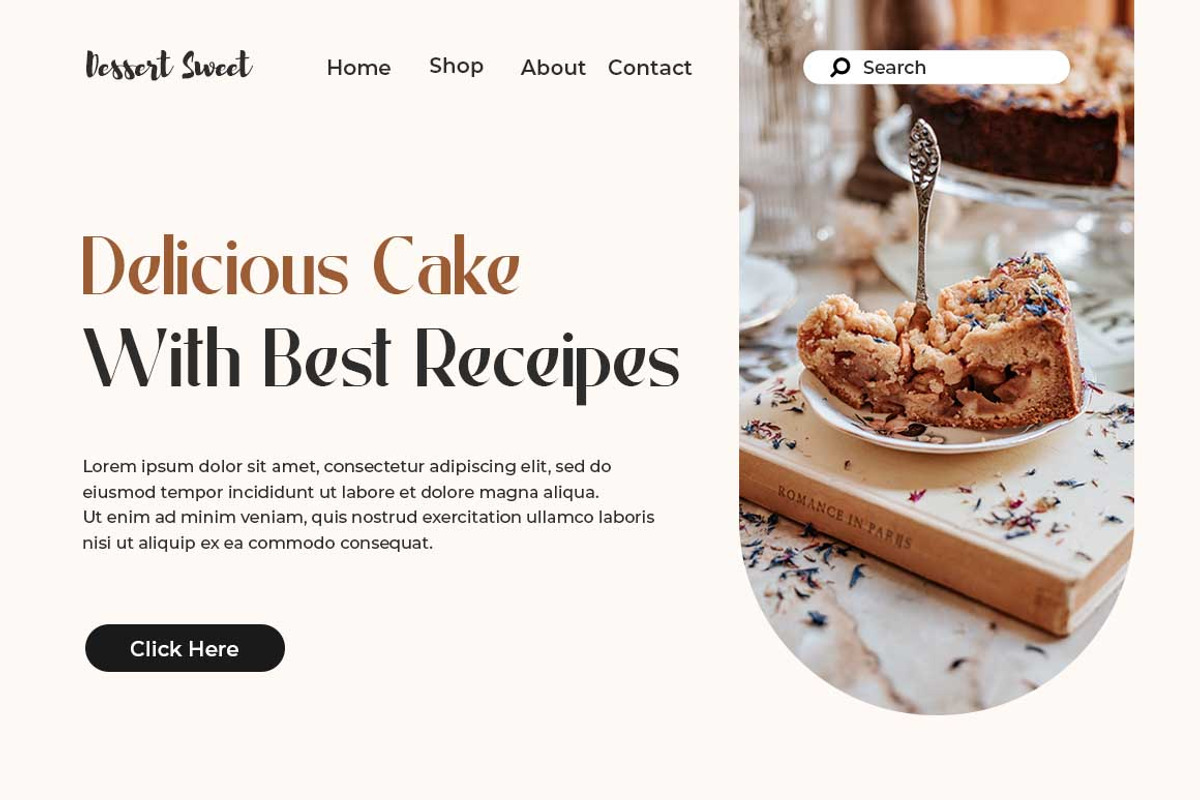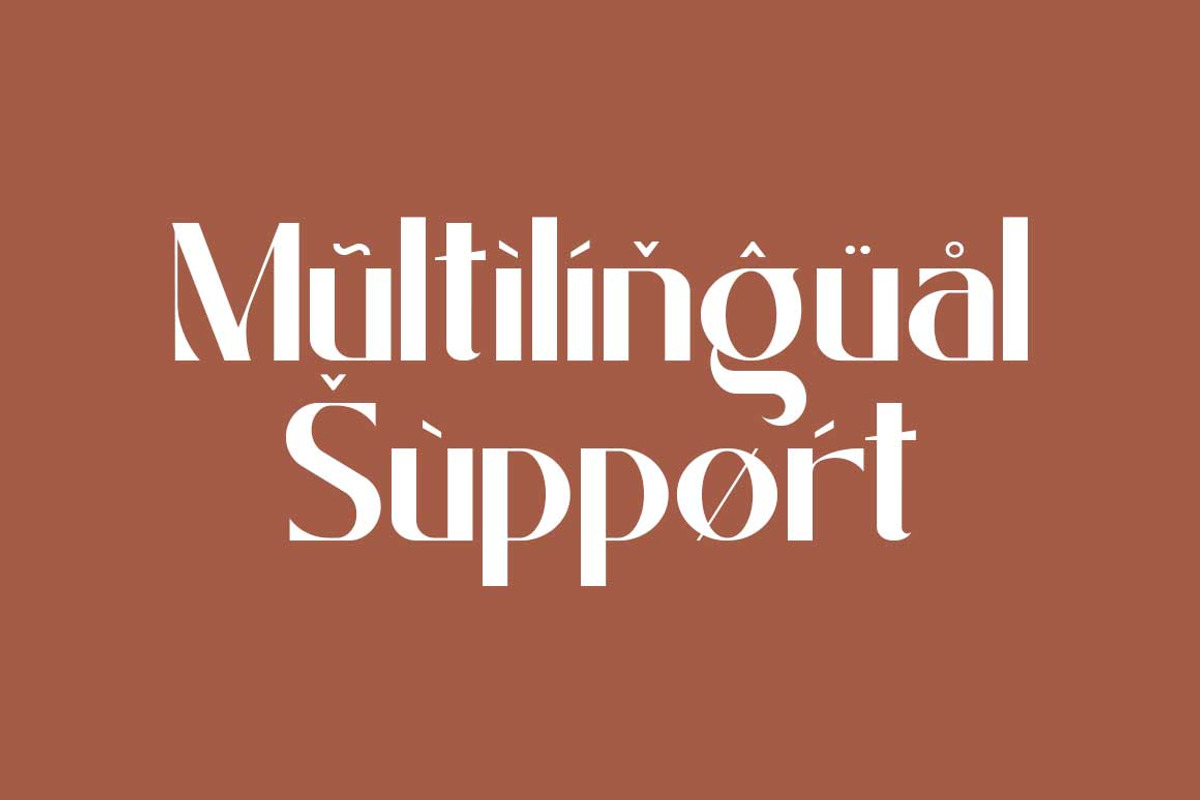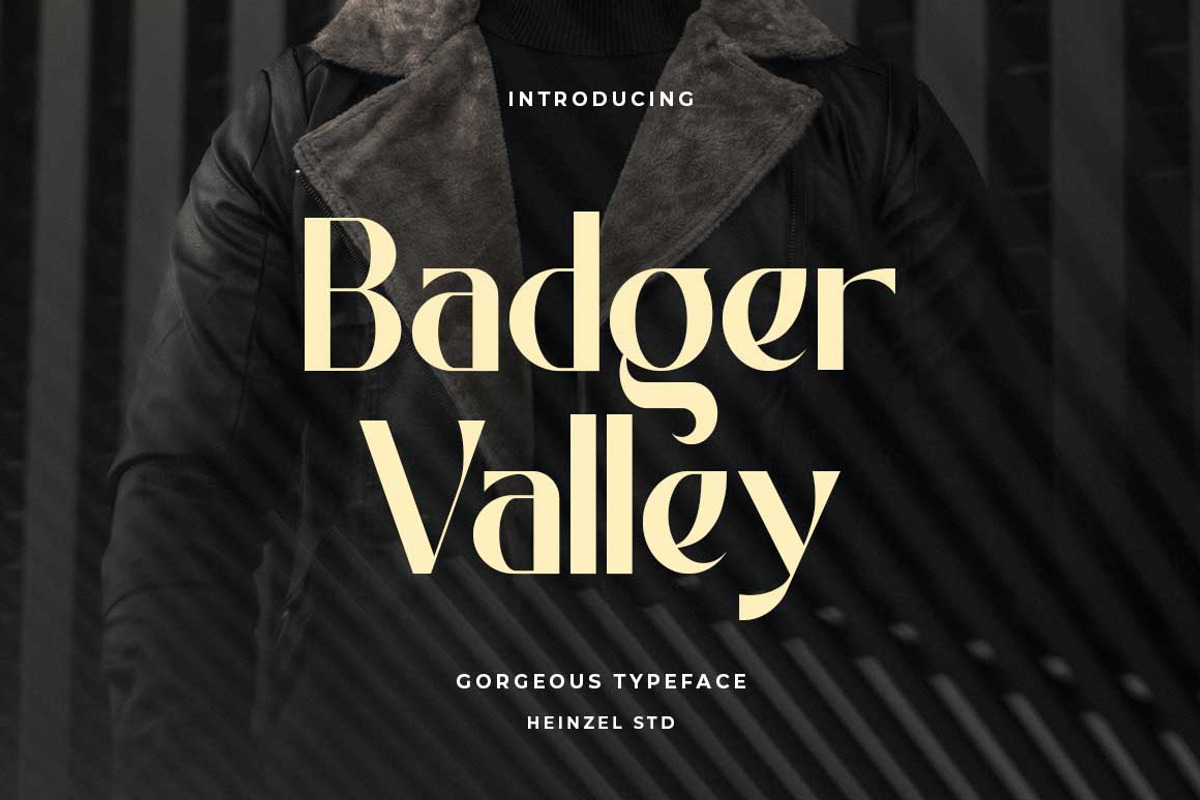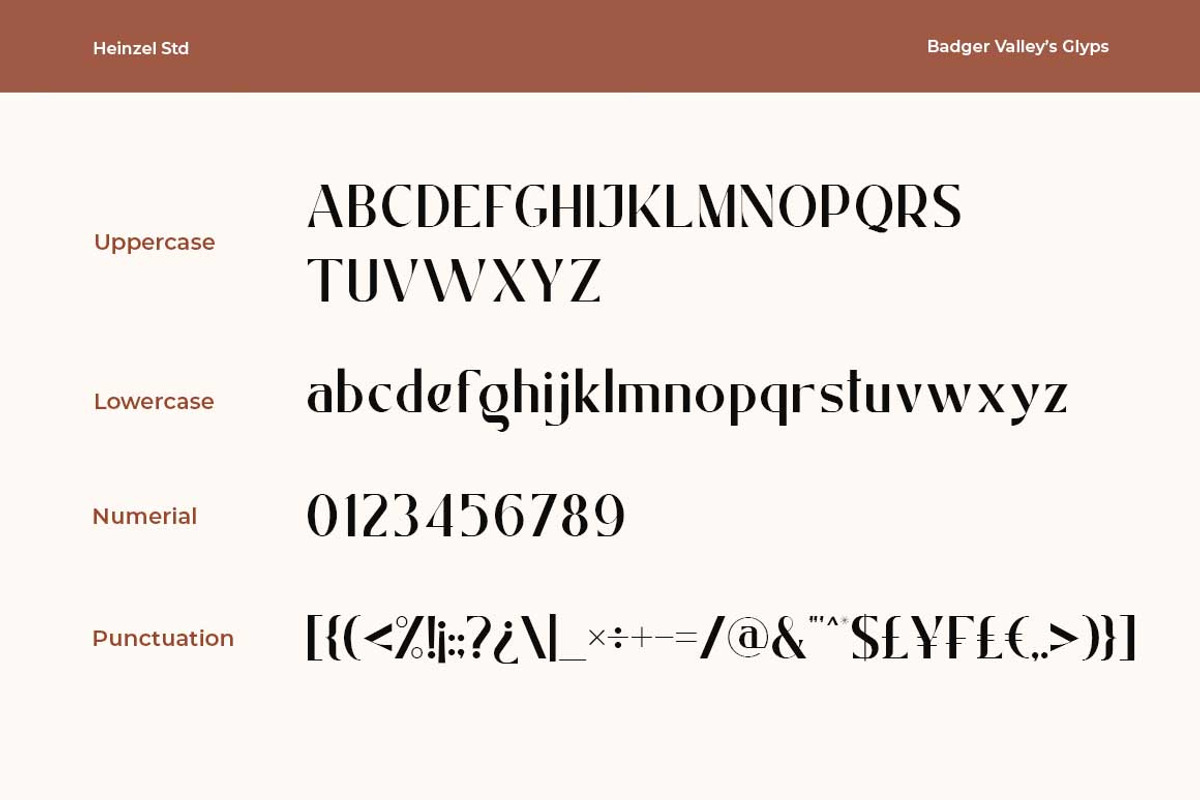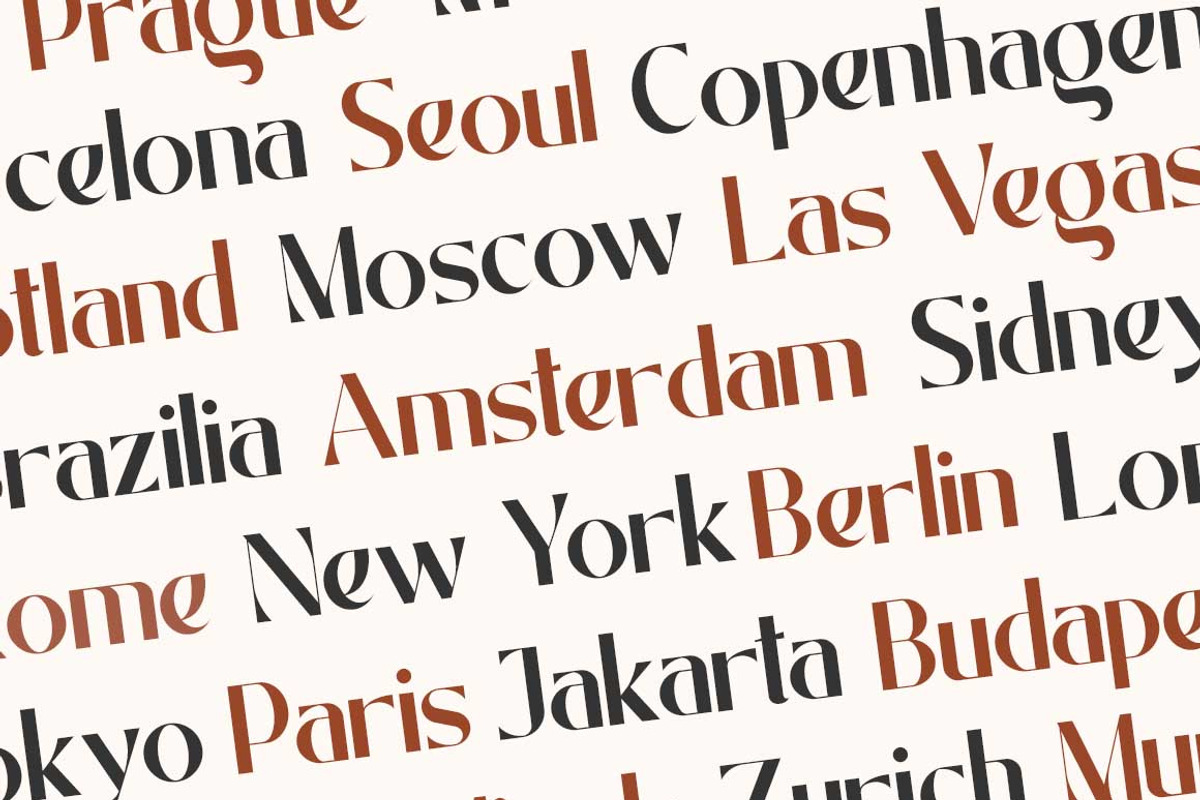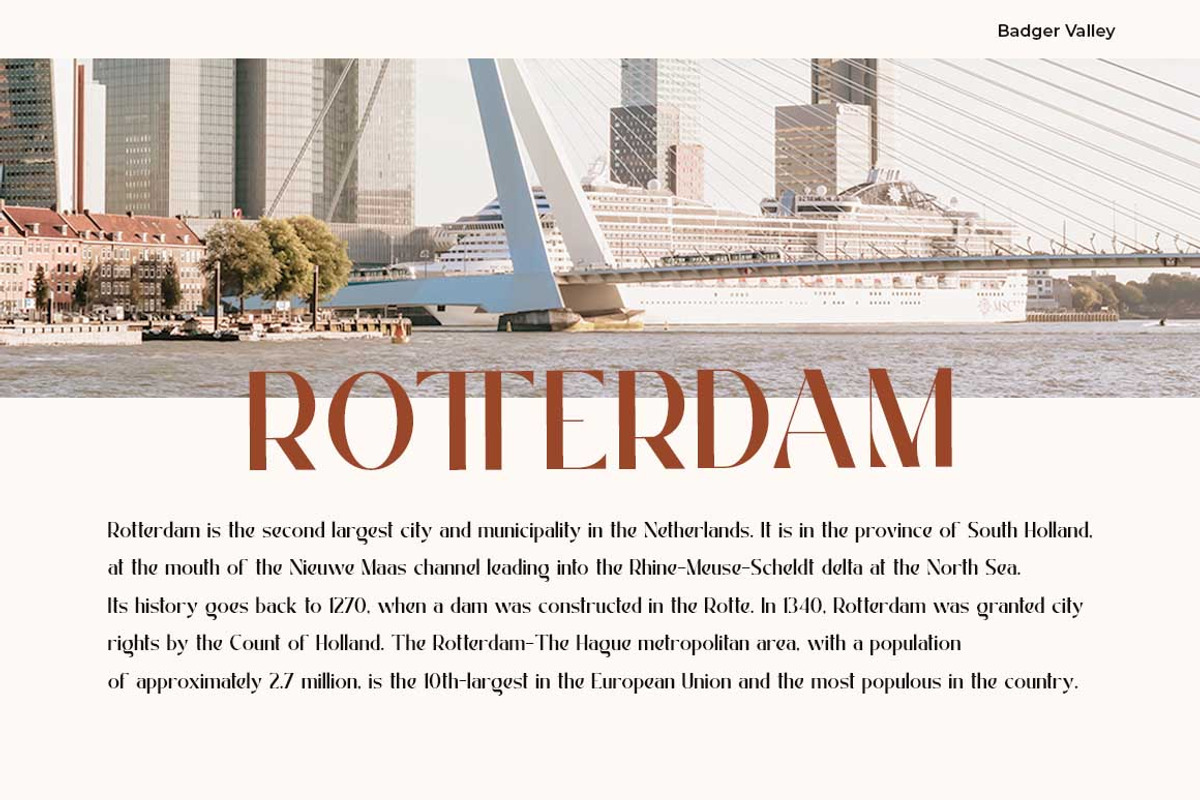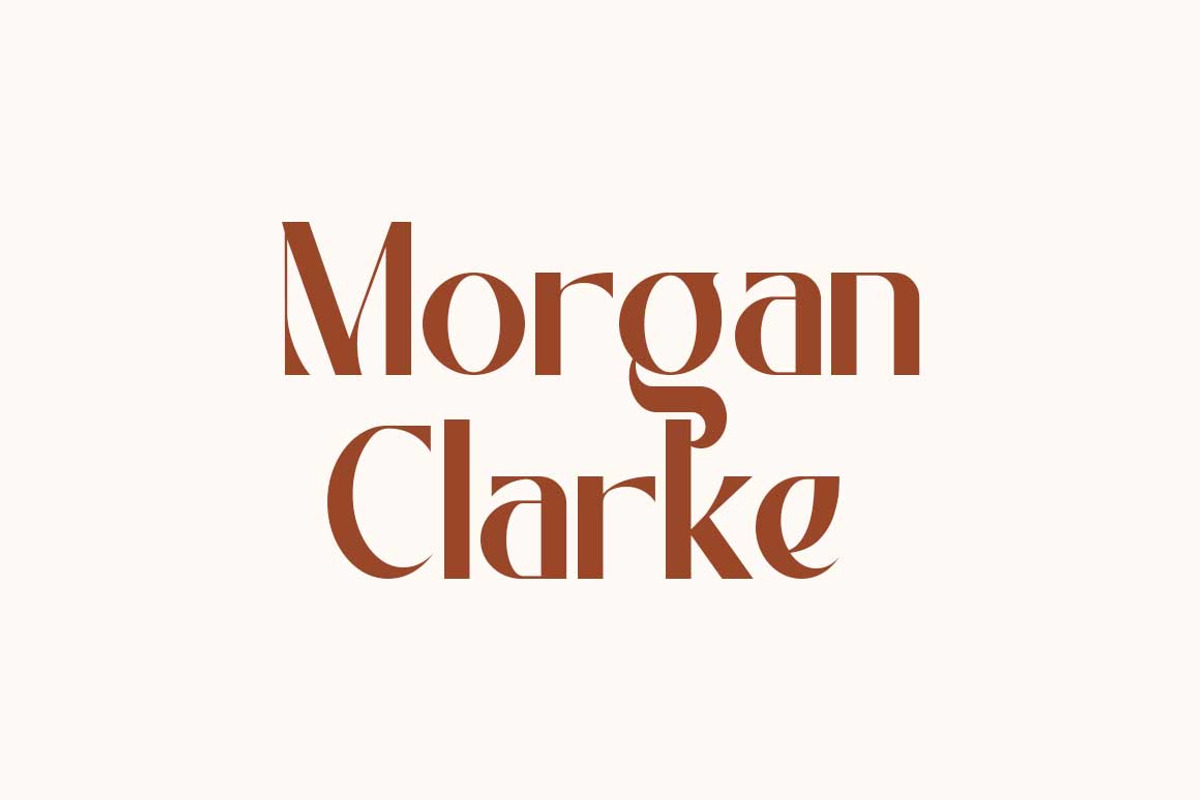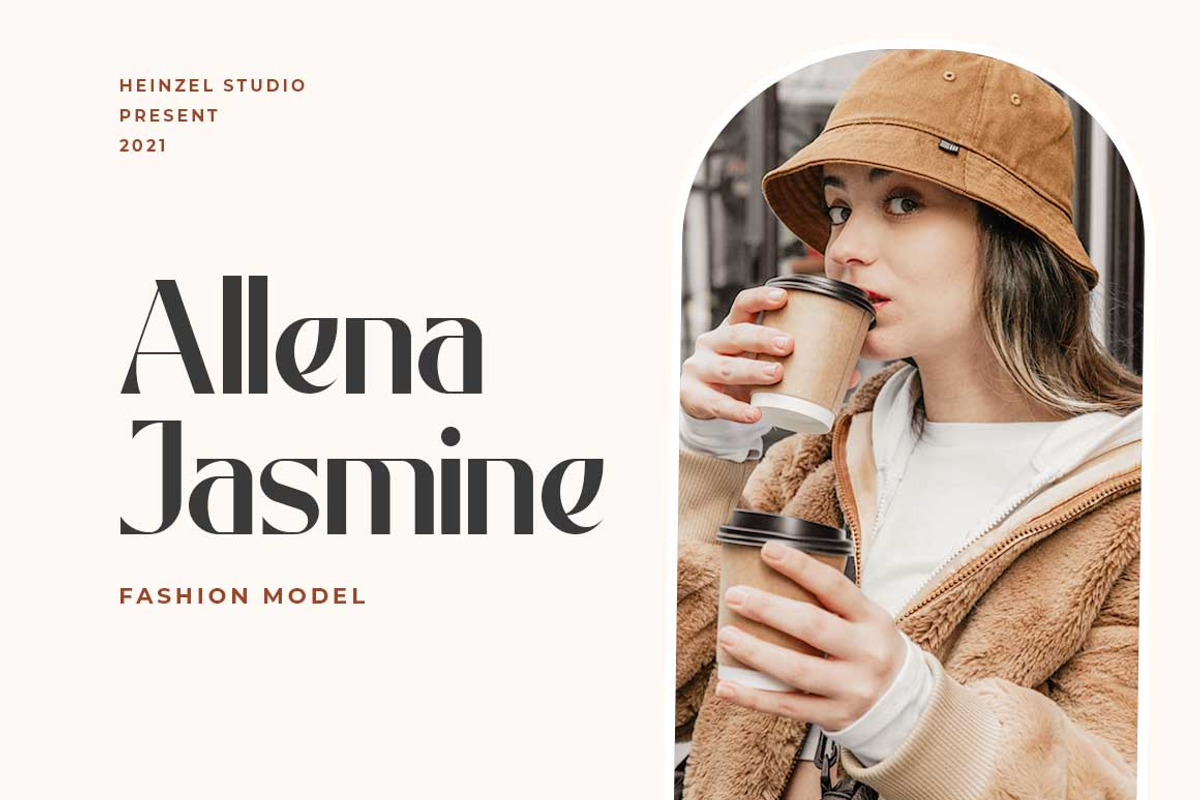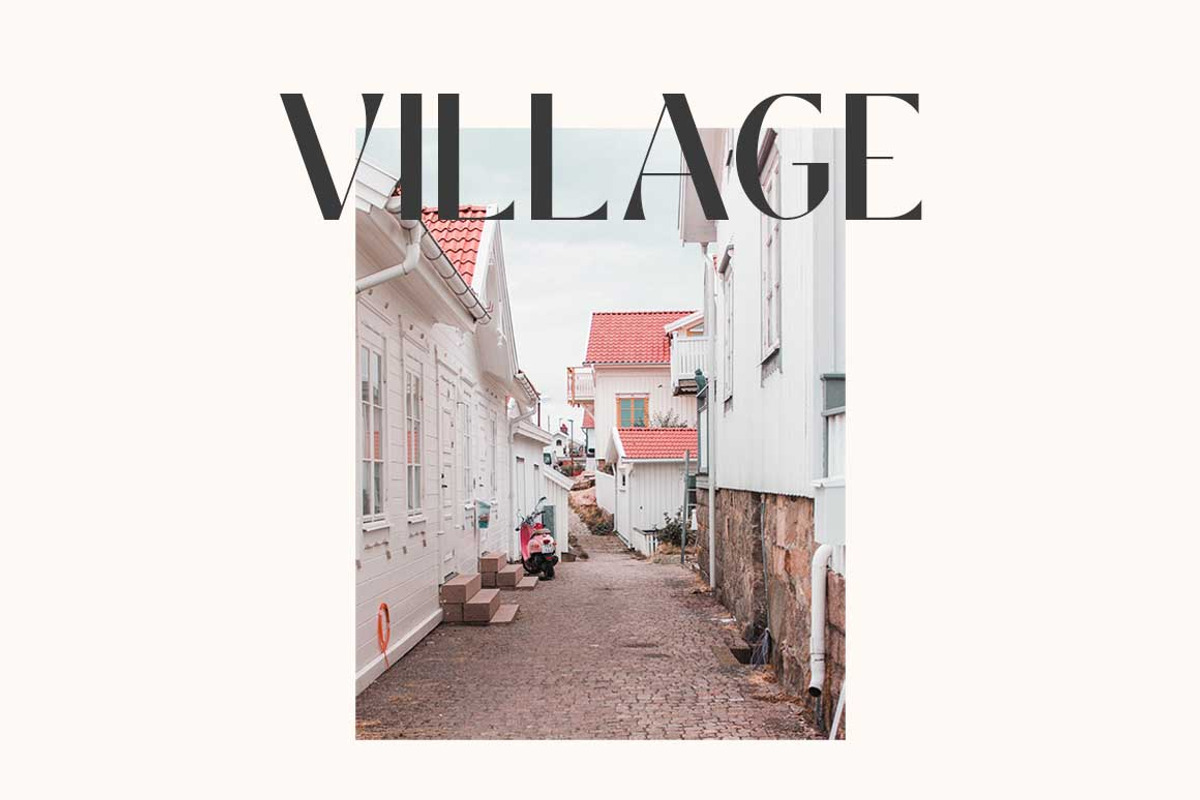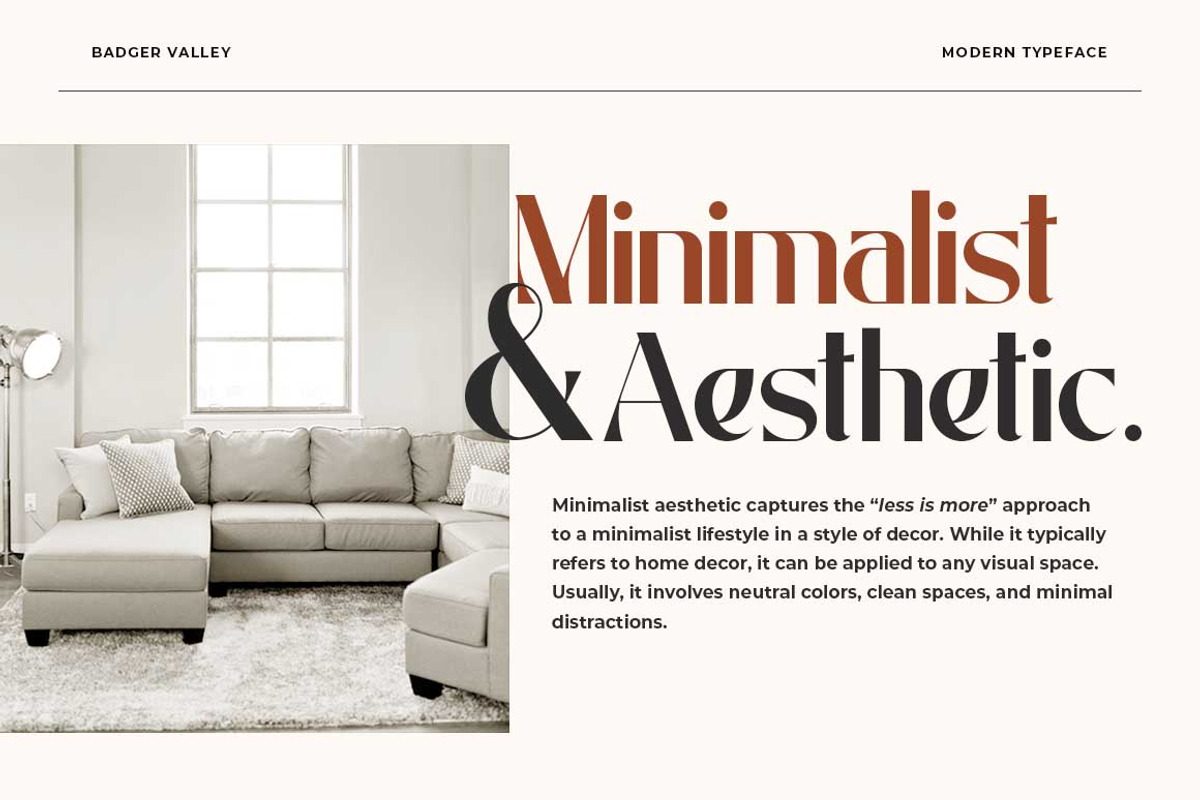
Badger Valley Modern Sans Serif
Badger Valley – Modern Sans Serif Font
Badger Valley is a modern sans serif font designed with a perfect balance of elegance and boldness. Featuring 2 versatile weights (Regular and Bold) along with matching italic styles, this typeface offers a refined and stylish look that adapts beautifully to a variety of design projects.
With its clean lines, unique letterforms, and contemporary flair, Badger Valley is ideal for branding, logos, editorial design, packaging, posters, and website typography. Whether you’re creating luxury fashion branding, minimal product packaging, or eye-catching social media graphics, this font ensures your message stands out with sophistication.
- 2 Weights: Regular & Bold
- Italic versions included
- Modern Sans Serif style with elegant curves
- Perfect for logos, headlines, branding, posters, and digital media
- Works seamlessly in both print and web projects
- Multilingual support for various languages
Bring timeless style and modern elegance to your designs with Badger Valley Typeface.